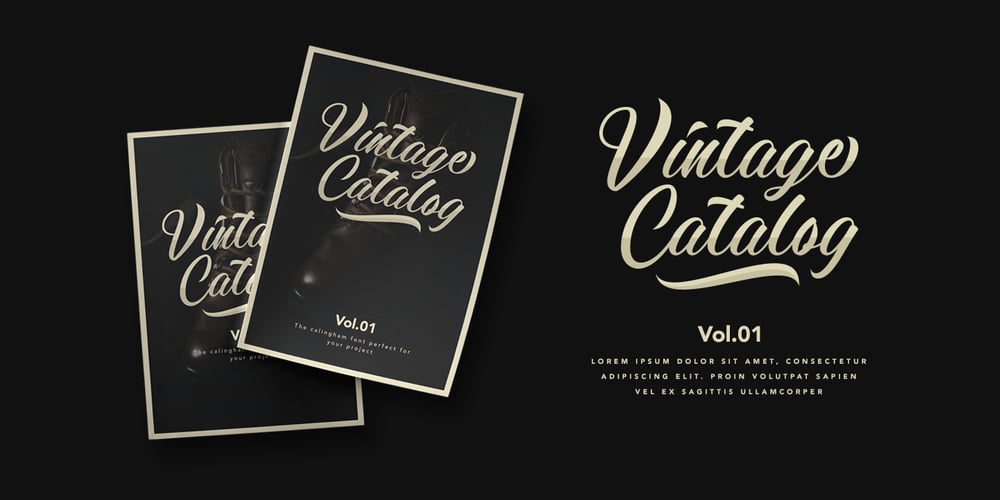
Calingham
Calingham font
Calingham Font Family was designed by Ahmad Khaidir and published by Dierstudio. Calingham contains 1 styles and family package options. Introducing Calingham is a brush font with a which gives a vintage and retro style but still with elegant and classy touch to your projects. Features: – ligature – 7 Stylistic set – Works on PC & Mac – Simple installations – Accessible in the Adobe Illustrator, Adobe Photoshop, Adobe InDesign, even works on Microsoft Word. – Multilingual Support